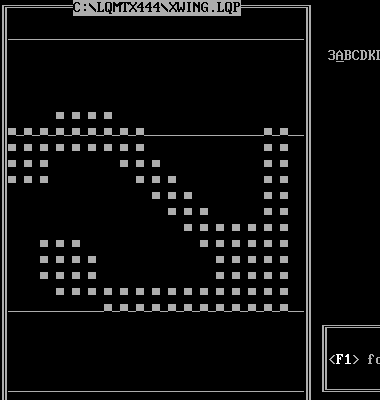
While it's fascinating to zoom in and examine how you've constructed these glyphs, the PXL view is where they really sparkle. 10!
Thanks for the kind words, fontcollector! It's the same gradient technique used for my video arcade game dingbat series, "The 1st Six Yrs (1-6)".
The latest group is of copy protection symbols from old Sierra and LucasArts games. In the pre-Internet days (15-20 years ago), just in case I ever lost the manuals, I would replicate them as best as I could in MS Word. Plus, it was always nice to have them all in one place.
Using an old shareware program in the early 1990s called "LQMatrix", you could create your own fonts for Epson Dot Matrix Printers. It would allow you to select which pins would strike while printing and though limited, the edit screen was very similar to what FontStruct allows for today (picture attached).
Now, of course, there is no need, as most manuals and protection schemes are easily found on-line in fan archive sites. However, I still maintain the copy protection list out of nostalgia, and am grateful that FontStruct allows me to now make game-accurate fonts of these odd and arbitrary symbols...
As for the Pizza element, it was originally referenced in the Famous Adventurer's Correspondence School manual for the game "Quest For Glory 2: Trial By Fire":
"Elementals are created by magical spells placed upon the primal elements of Earth, Air, Water, Pizza, and Fire (Some theoreticians suggest that there are only four real elements, but most modern scholars agree that fire is undoubtedly a basic element)..."
Copy protection symbols??
@Umbreon126 - Yes! As I mentioned above, these are all for my personal archive of copy protection codes. Not so useful nowadays, since you can find any manual in seconds with an Internet search engine...